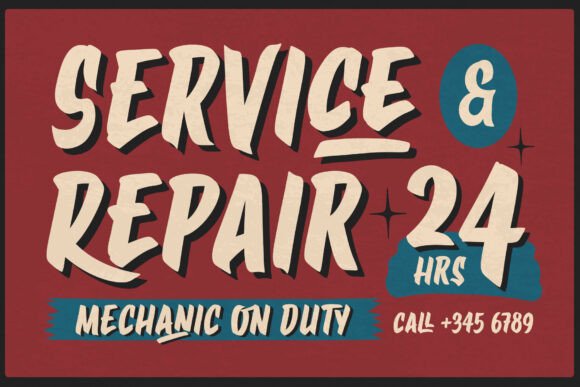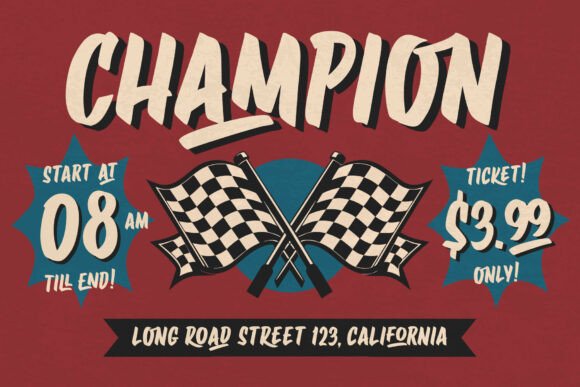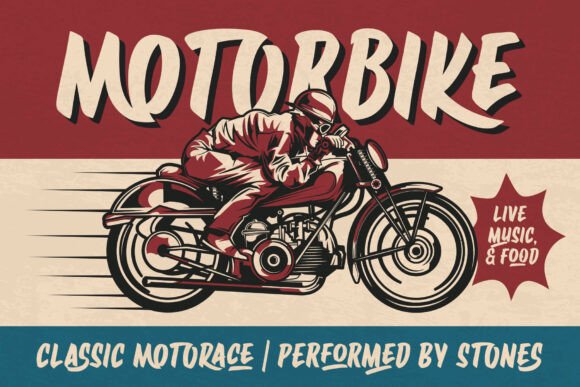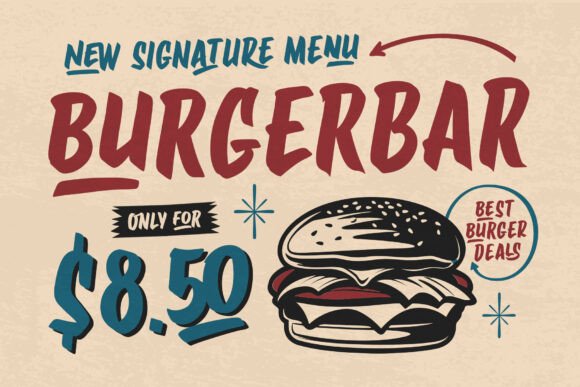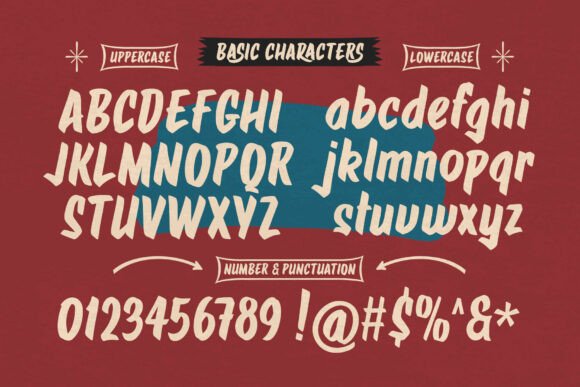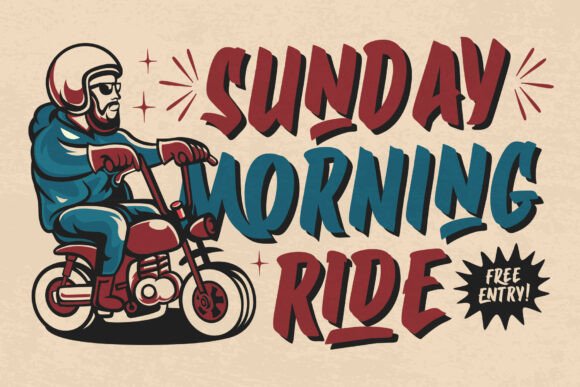
Introducing Garage Brush Font: The Ultimate Vintage-Inspired Typeface for Creative Projects
Are you tired of using the same old fonts in your designs? Do you want to add a touch of authenticity and flair to your creative projects? Look no further than Garage Brush Font, a vintage-inspired handwritten typeface that captures the smooth spontaneity of brush paint strokes. In this article, we’ll dive into the world of Garage Brush Font and explore its unique features, uses, and benefits for designers and crafters.
What is Garage Brush Font?
Garage Brush Font is a carefully crafted typeface that mimics the fluid, organic strokes of a brush pen. With its bold and fluid lines, this font is perfect for adding a retro, artisanal feel to any design. Whether you’re creating a logo, poster, or branding materials, Garage Brush Font is sure to make your project stand out from the crowd.
Key Features of Garage Brush Font
- Vintage-Inspired Design: Garage Brush Font is inspired by the classic brush fonts of the past, with a modern twist to make it suitable for contemporary designs.
- Handwritten Style: This font features a genuine handwritten style, complete with subtle imperfections and variations in line width.
- Bold and Fluid Lines: The bold and fluid lines of Garage Brush Font make it perfect for creating eye-catching headlines, titles, and slogans.
- Authentic Look and Feel: With its rough, textured appearance, Garage Brush Font adds a touch of authenticity to any design.
Uses for Garage Brush Font
Garage Brush Font is an incredibly versatile typeface that can be used in a wide range of creative projects, including:
- Logos and Branding: Create a unique and memorable logo for your business or brand with Garage Brush Font.
- Posters and Flyers: Add a touch of vintage flair to your posters and flyers with this eye-catching font.
- Social Media Graphics: Use Garage Brush Font to create engaging social media graphics that stand out from the crowd.
- Packaging Design: Add a personal touch to your product packaging with this charming font.
Garage Brush Font offers a range of benefits for designers and crafters, including:
- High-Quality Design: Garage Brush Font is designed to high standards, ensuring a crisp and clear appearance in any design.
Tips for Using Garage Brush Font
To get the most out of Garage Brush Font, follow these simple tips:
- Experiment with Colors: Try pairing Garage Brush Font with different colors to create a unique and eye-catching design.
- Play with Sizes: Experiment with different font sizes to create visual interest and hierarchy in your design.
- Combine with Other Fonts: Pair Garage Brush Font with other fonts to create a unique and stylish combination.
Garage Brush Font is a versatile and stylish typeface that’s perfect for adding a touch of vintage flair to any design. With its bold and fluid lines, this font is ideal for logos, posters, branding, and creative projects that need a touch of authenticity and flair. Whether you’re a designer or crafter, Garage Brush Font is a must-have addition to your font library.